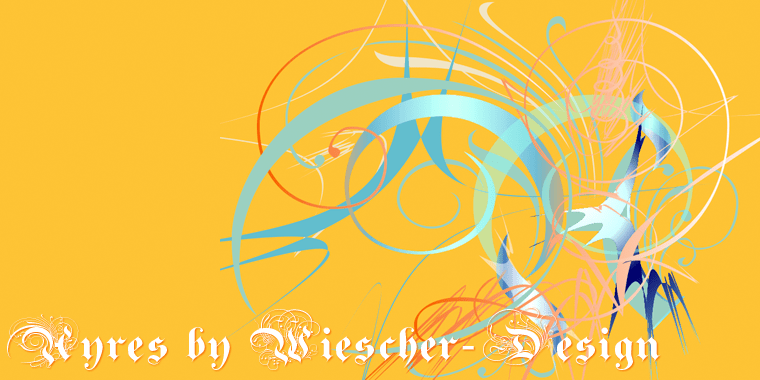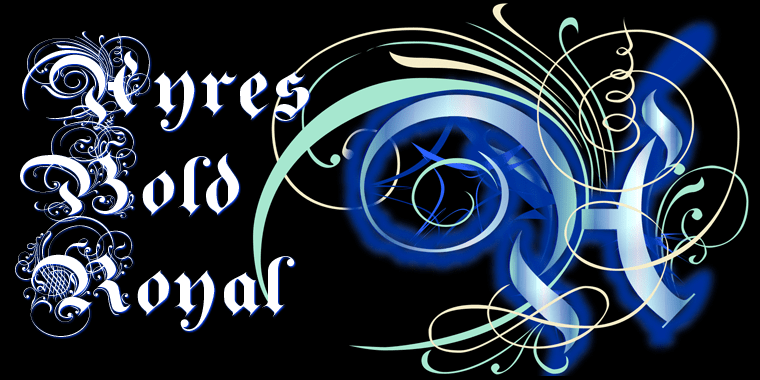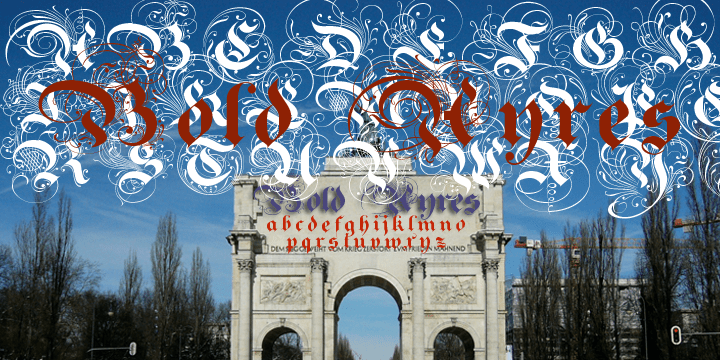
Bold Ayres
Font Family by Wiescher Design
BoldAyres is the heavy version of my Ayres Royal that was inspired by famous calligrapher Ayres and a little bit by a Bavarian King.